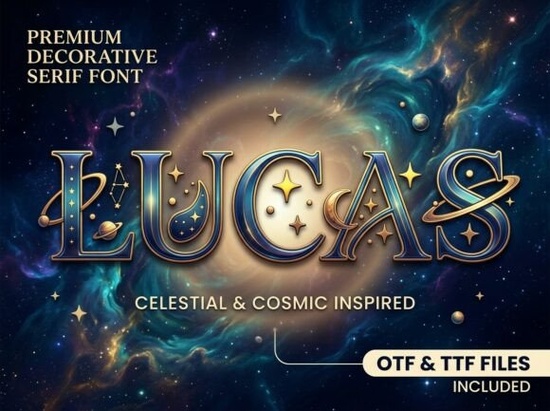
If you’ve ever wanted your typography to feel like it belongs on the cover of a sci-fi epic or inside a star chart at a planetarium, Lucas Font might be exactly what you’re looking for. It’s not just another decorative serif it’s designed with celestial motifs in mind, from subtle planetary rings to constellations tucked into letterforms. Whether you’re designing book covers, branding for an astrology shop, or merch for space-themed games, this font adds quiet wonder without overwhelming your layout.
The deep midnight blue and gold accents aren’t just visual flair they’re baked into the design philosophy. You don’t need to add effects or overlays; the font itself carries that cosmic glow. And if you’ve browsed our collection of decorative fonts with personality, you’ll know Lucas fits right in alongside other themed typefaces meant to tell a story before the reader even gets to the first word.
Who is this font best suited for?
It’s ideal for creatives who want their work to feel immersive. Think:
- Indie authors releasing fantasy or sci-fi novels especially those with cosmic or mystical themes.
- Print-on-demand sellers creating mugs, posters, or journals with astrology, astronomy, or galaxy-inspired quotes.
- Small studios or game developers working on space exploration titles or tarot-based mobile games (yes, it pairs surprisingly well with mystic themes too check out our tarot-inspired decorative fonts for more ideas).
- Hobbyists making birthday cards for stargazers or custom wall art for nurseries with a “little astronaut” theme.
You don’t need advanced design skills to make it work. The weight and spacing are balanced enough that even simple center-aligned quotes look intentional and elegant.
How does it perform in real-world projects?
One thing users consistently mention is how well Lucas scales. At large sizes think poster headlines or book covers the ornamental details shine. But even at smaller sizes, like product packaging or social media banners, the core structure holds up. The serifs remain legible, and the cosmic embellishments become texture rather than distraction.
It also layers beautifully. Try pairing it with a clean sans-serif for body text, or overlay it on nebula backgrounds without losing readability. The built-in contrast between dark base tones and metallic highlights means you often don’t need drop shadows or outlines to make it pop.
What if I’m not sure it’s the right fit?
Fonts are personal. What sings to one designer might feel off-key to another. If you’re unsure, here’s what helps: preview it with your actual content. Type out your project title or quote in Lucas Font using the live preview tool. See how the curves interact with your words. Does “Stellar Journey” feel more magical? Does “Cosmic Oracle” suddenly look like it belongs on a tarot deck?
Also consider context. This isn’t a font for corporate reports or minimalist logos. But if your goal is to evoke mystery, wonder, or celestial grandeur it’s probably perfect.
Any tips for getting the most out of it?
A few small tweaks can elevate your results:
- Use sparingly. One headline, one quote, one logo let it be the focal point.
- Pair with neutral backgrounds. Deep blacks, navy gradients, or even parchment textures let the gold accents catch the eye naturally.
- Adjust tracking slightly. A little extra letter spacing helps the decorative elements breathe, especially in all-caps layouts.
- Export as vectors when possible. Preserves those fine details for print or scaling.
And if you’re working on something astrology-adjacent, don’t overlook how well Lucas complements symbolic layouts. It’s not overtly “mystical,” but there’s a quiet magic in its structure that resonates with tarot, zodiac, or moon phase designs.
Final thought
Typography should serve the story you’re telling. Lucas doesn’t shout it glimmers. It doesn’t demand attention it invites curiosity. If your project lives somewhere between science and myth, between sky charts and dream journals, this font will feel like it was made for you.
Next step: Open your current project file. Type your main headline in three different fonts including Lucas. Which one makes you pause? Which one feels like it belongs? Sometimes, the right choice reveals itself quietly.